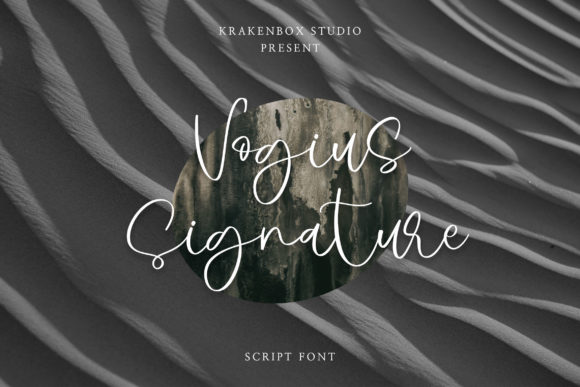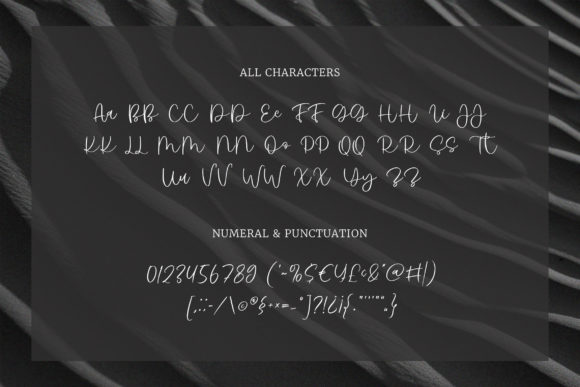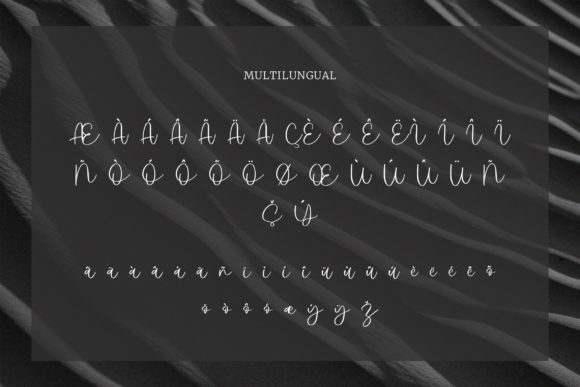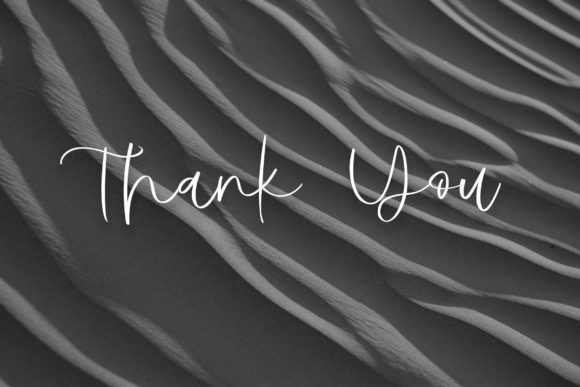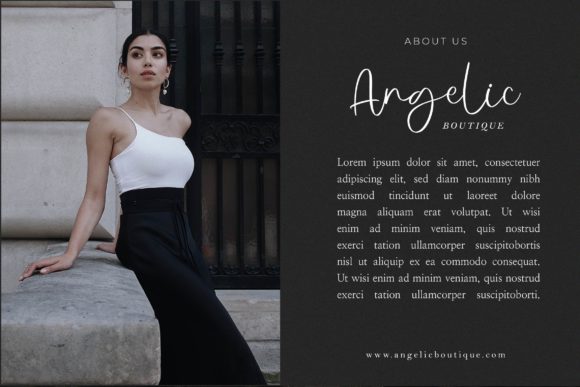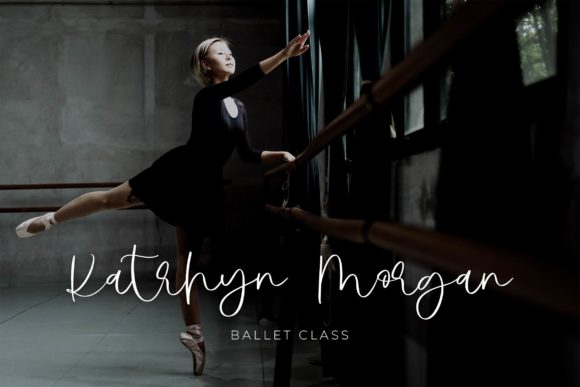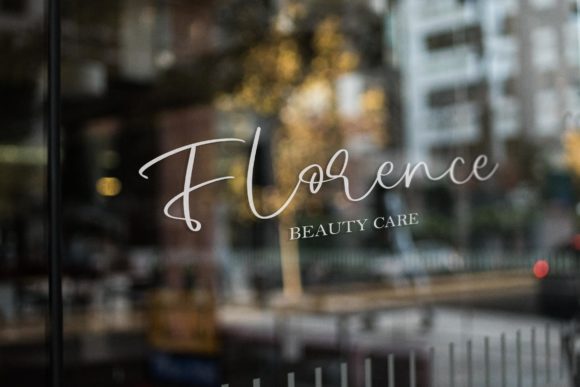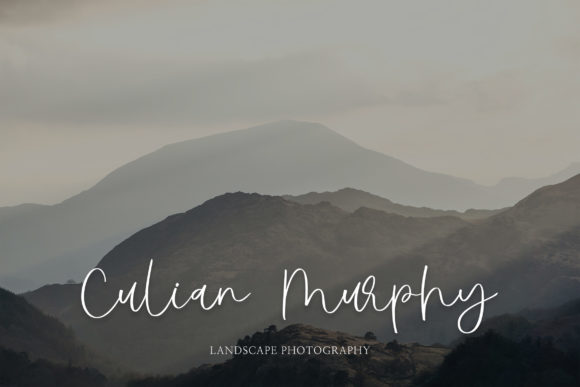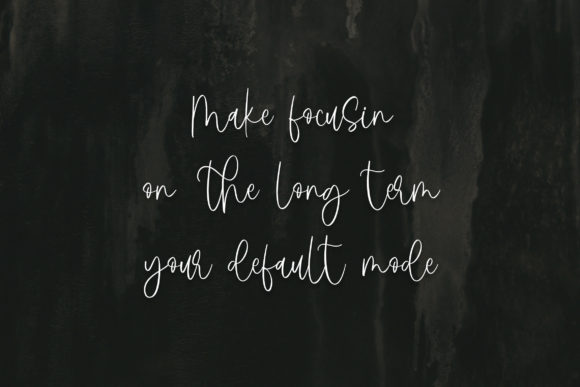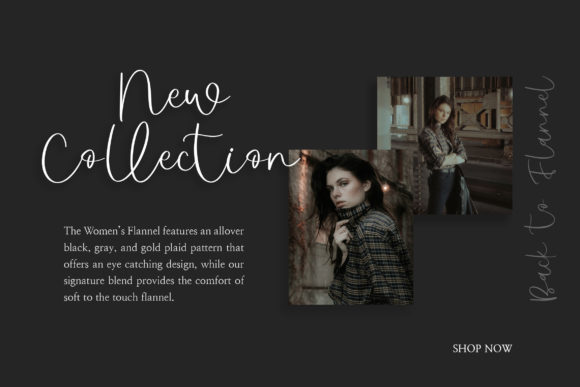
Vogius Signature Font
About Vogius Signature Font
Vogius Signature is a fashionable script font with its own unique curves and an elegant inky flow. Its elegant, classy, and modern look makes it a fantastic choice for fashion, signature, album cover logos, branding, magazines, and many more.